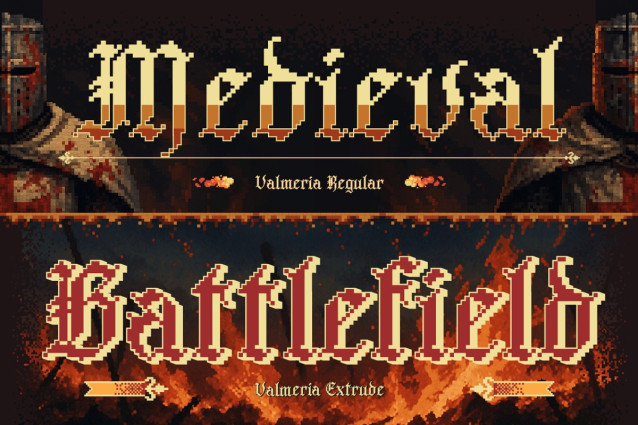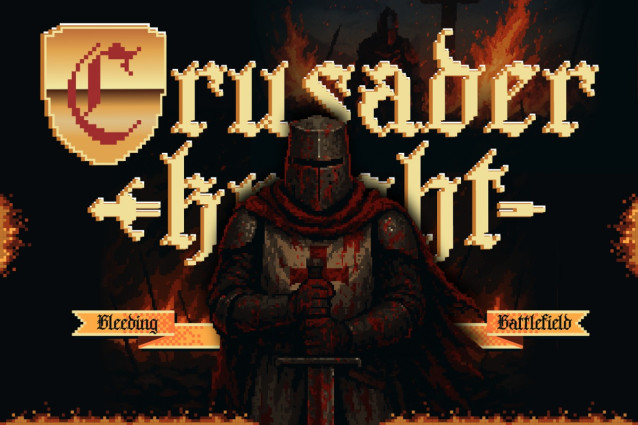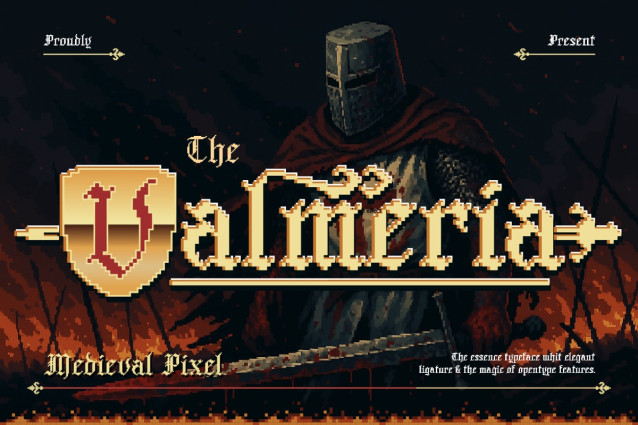
Valmeria Medival Pixel Font
Valmeria Medival Pixel Font a unique typeface that blends the bold spirit of medieval blackletter with the retro charm of pixel art. This font is all about drama and sharp edges style, pixel perfect curves, and that old-school gothic vibe that feels straight out of a dark fantasy RPG. Whether you’re working on a pixel game, a vintage poster, or just wanna give your design some epic knight energy, Valmeria is here to rule. Comes in Regular and Extrude styles, so you can keep it clean or go extra bold with a striking 3D look. Plus, it’s packed with uppercase, lowercase, numbers, and symbols—ready to bring your medieval pixel dreams to life. If you’re into pixel art, gaming aesthetics, or just love fonts that stand out, Valmeria is the perfect weapon of choice.